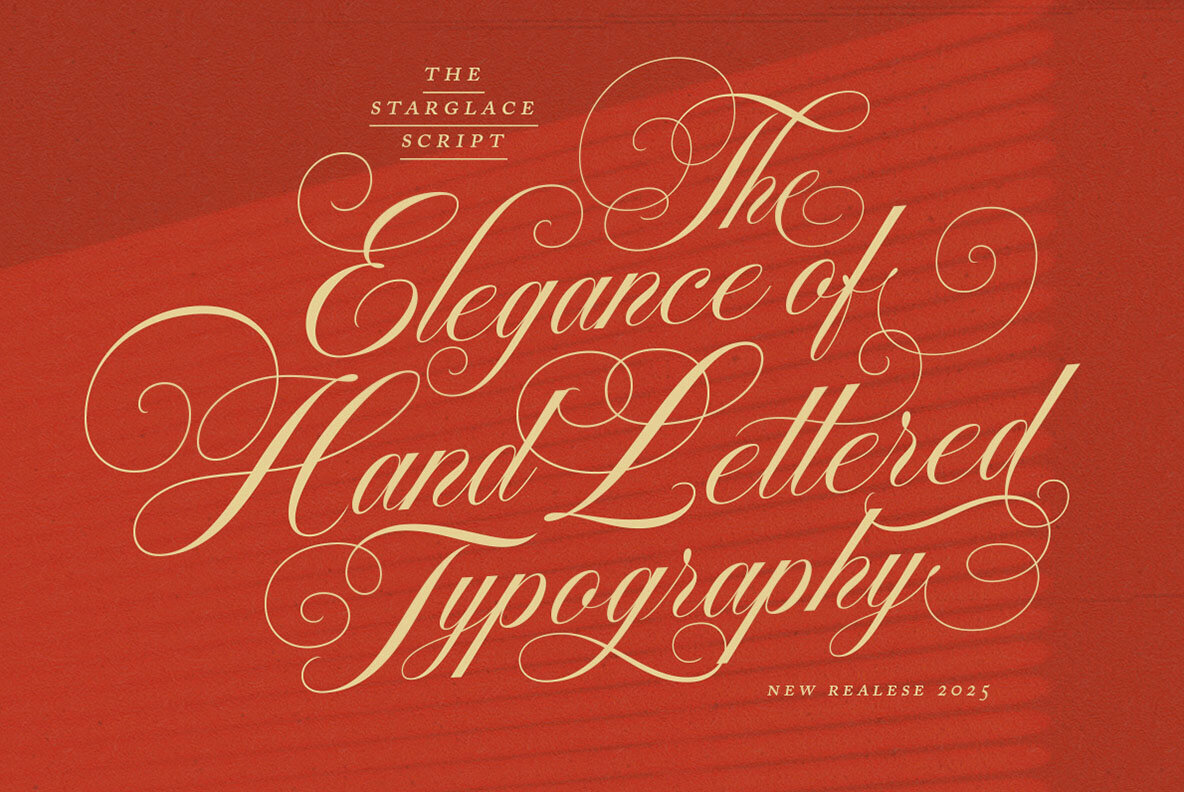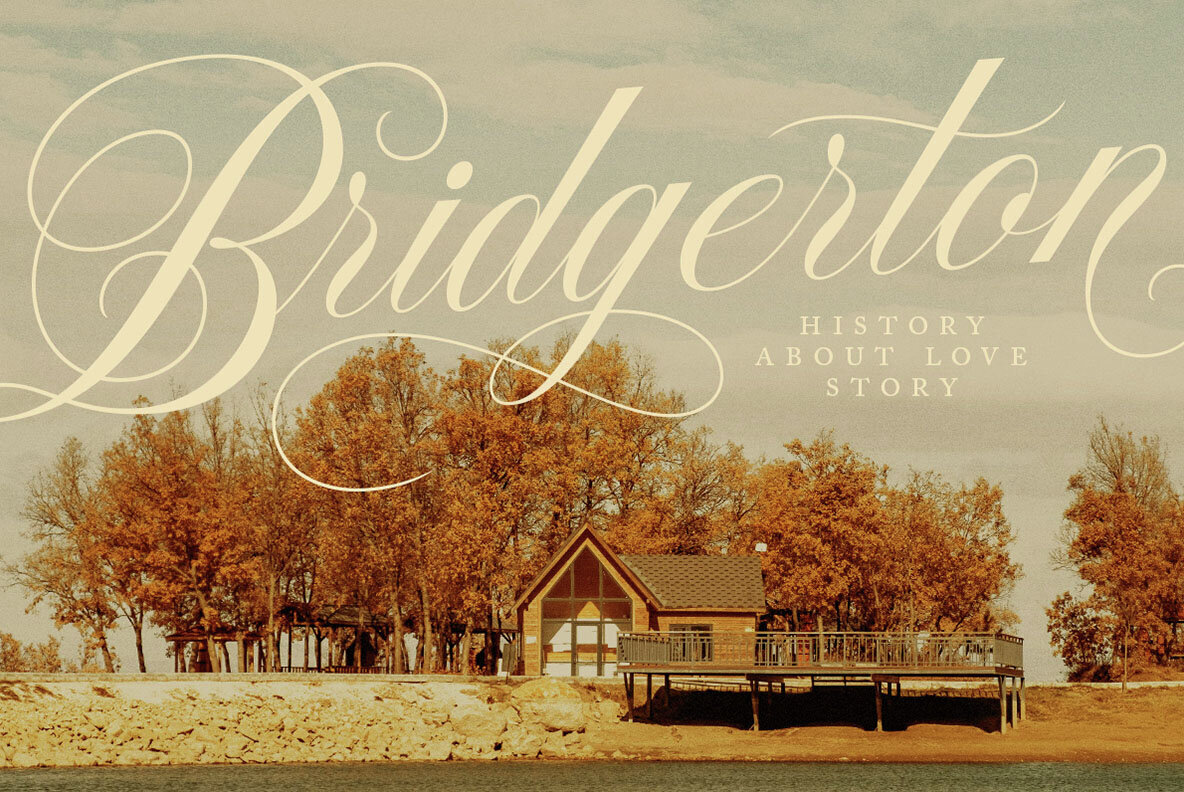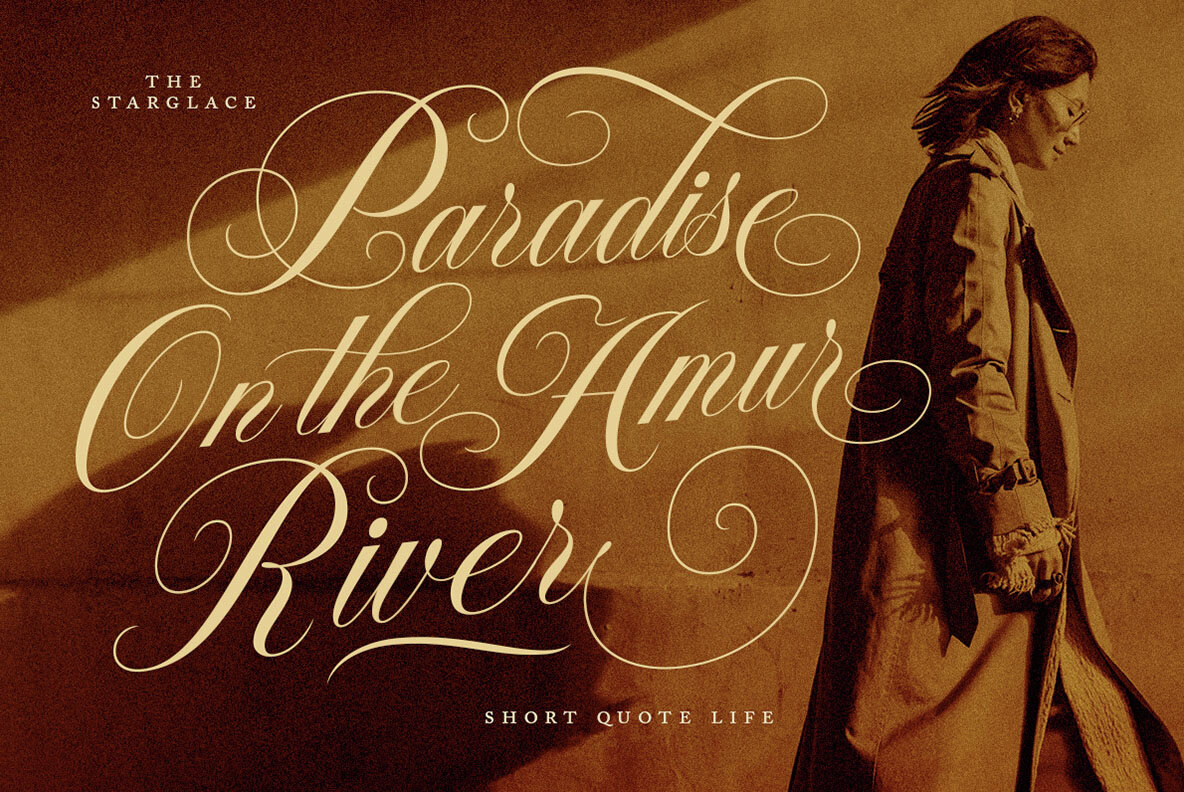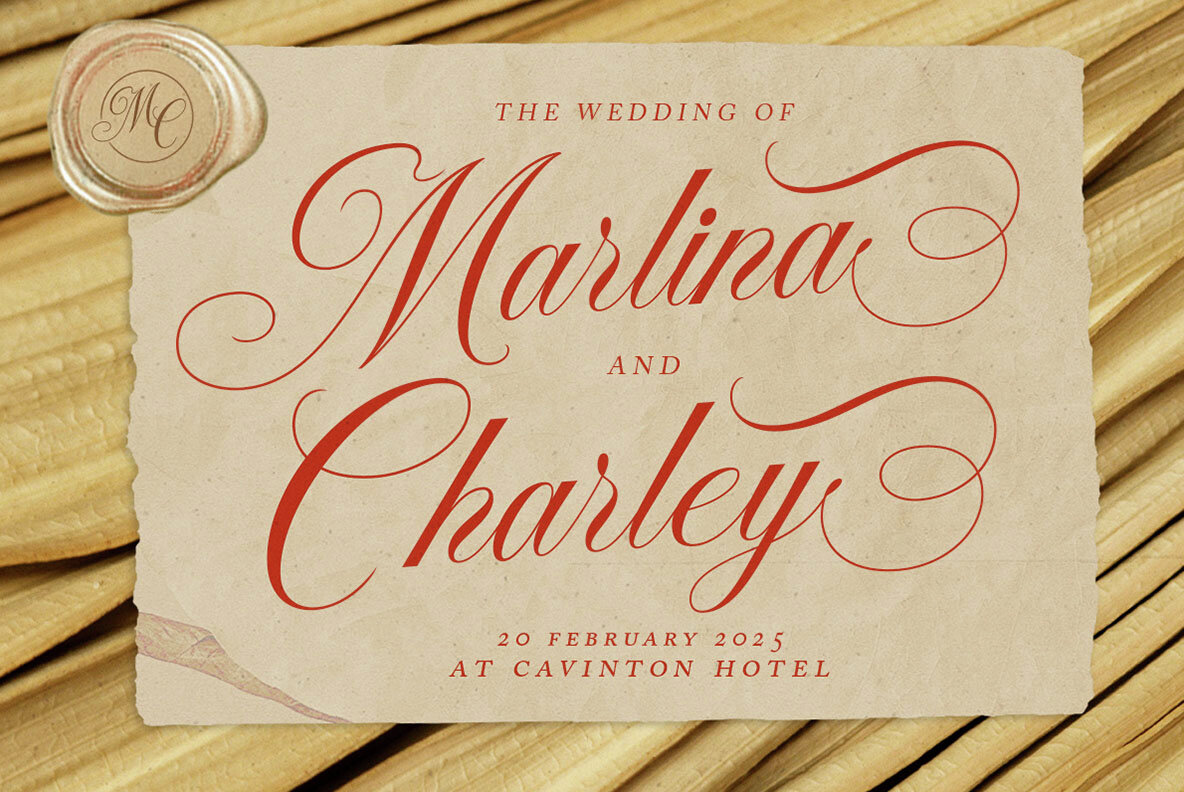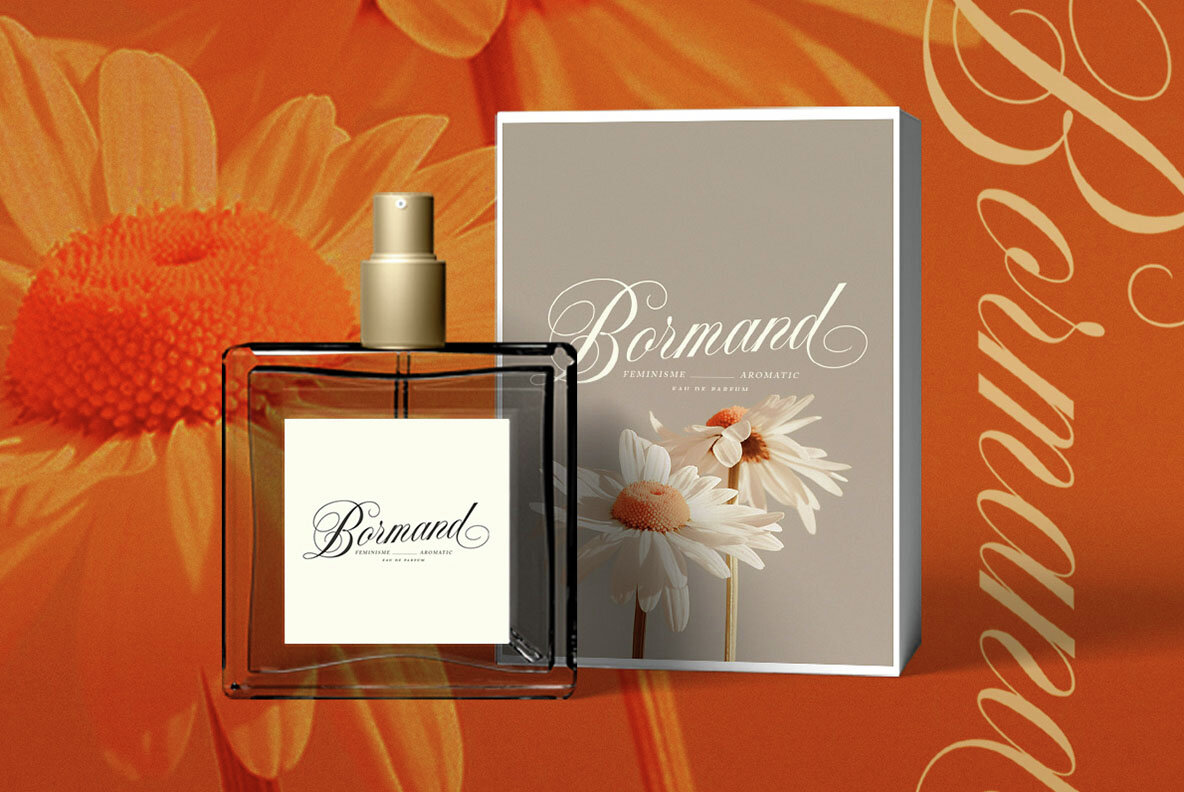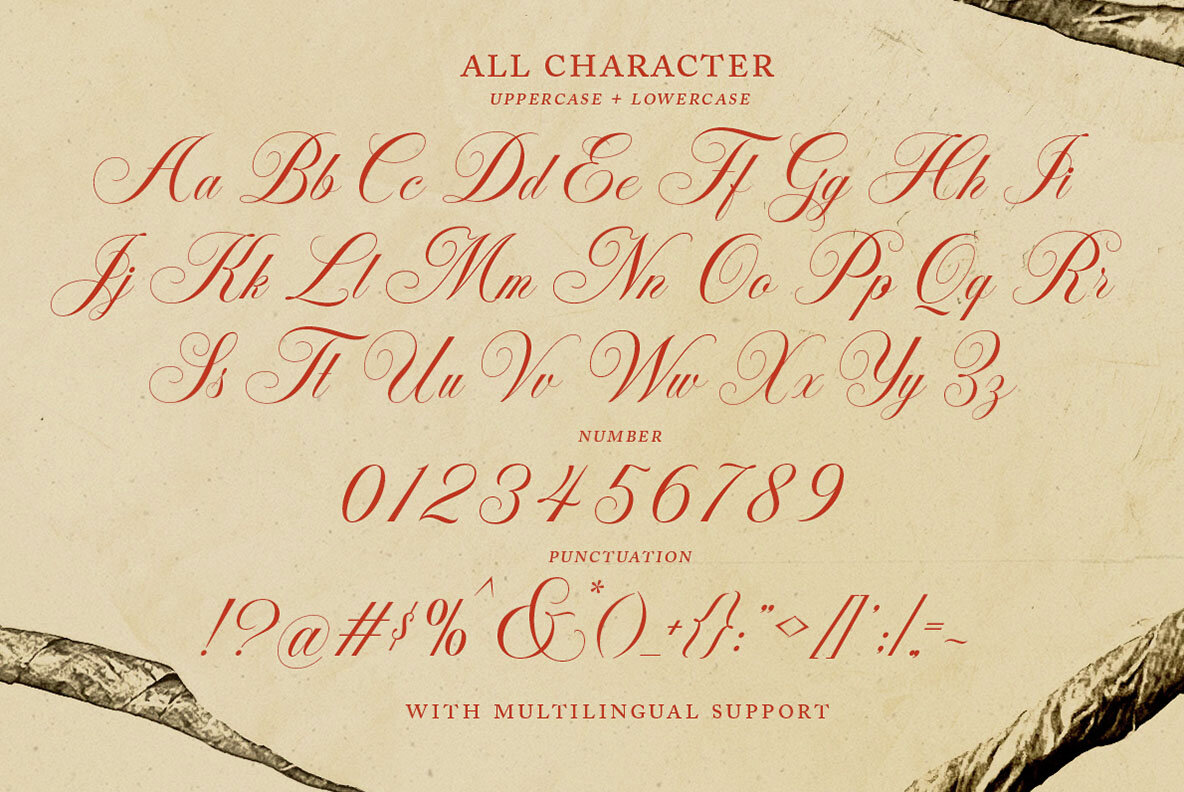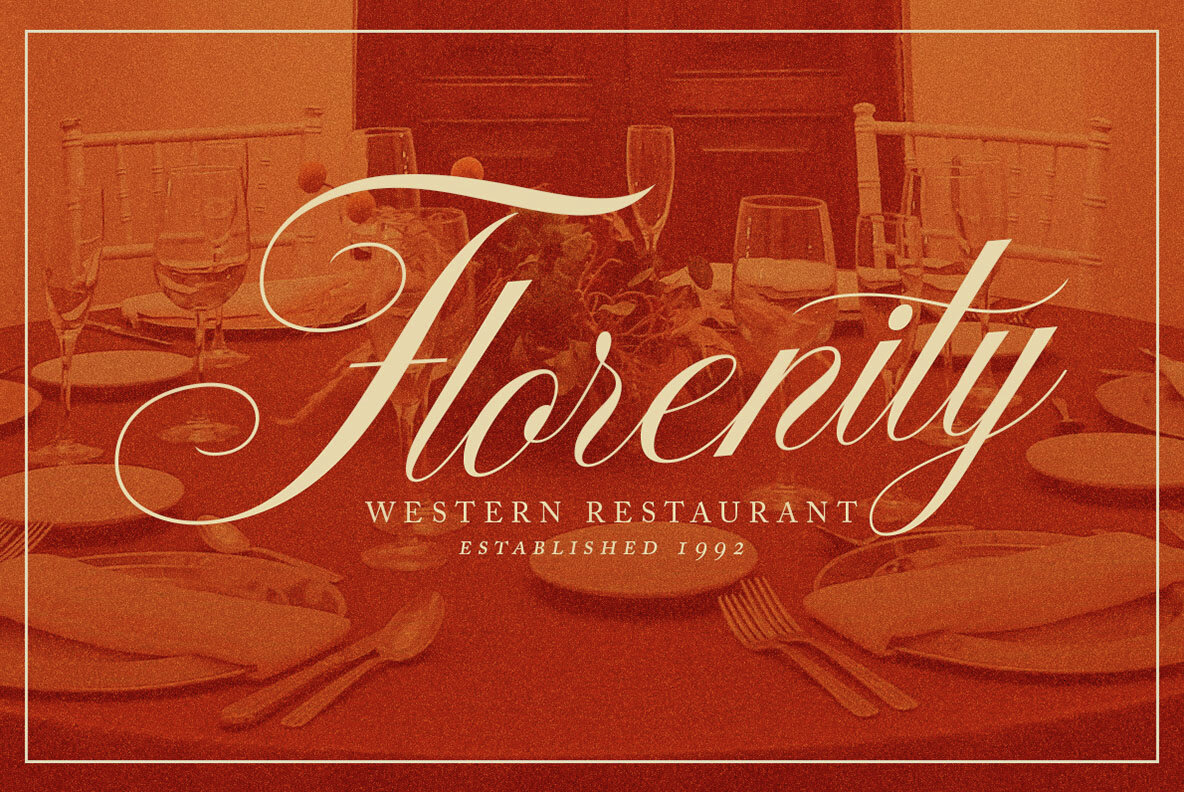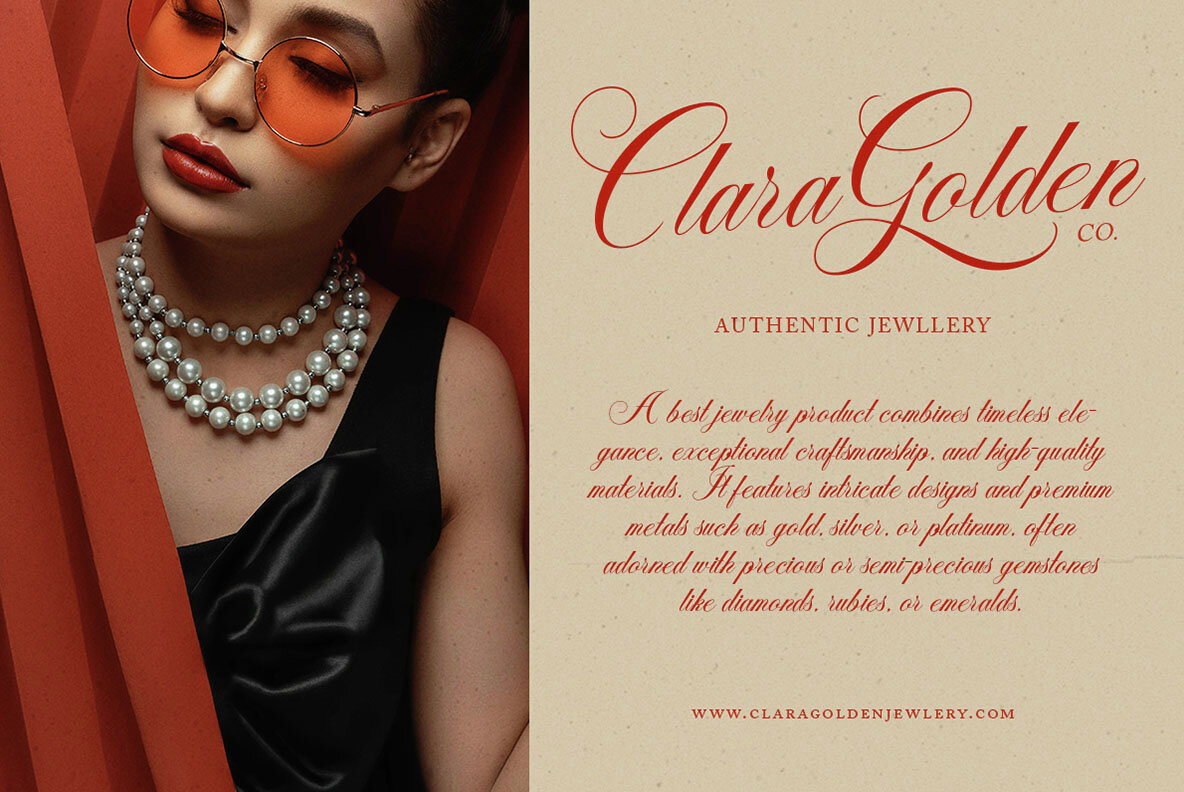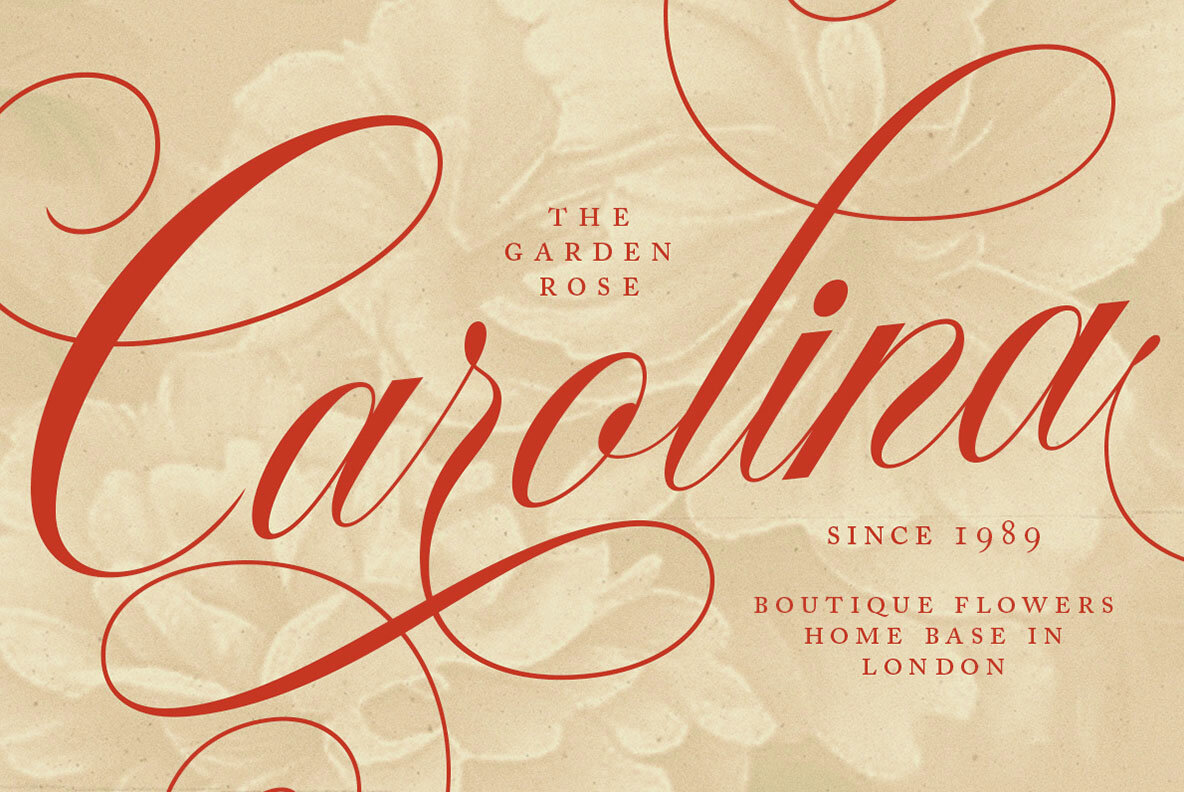
The Starglace Font
Starglace Regular
The Starglace is a sophisticated script font designed to embody elegance and timeless beauty. The fine details and flowing curves of The Starglace are crafted to deliver an exquisite look, suitable for both modern and vintage themes. Whether used as a headline or a stylish accent, this font adds a touch of sophistication to any project. Features: We highly recommend using a program that supports OpenType features and Glyphs panels like many of Adobe apps and Corel Draw, so you can see and access all Glyph variations.